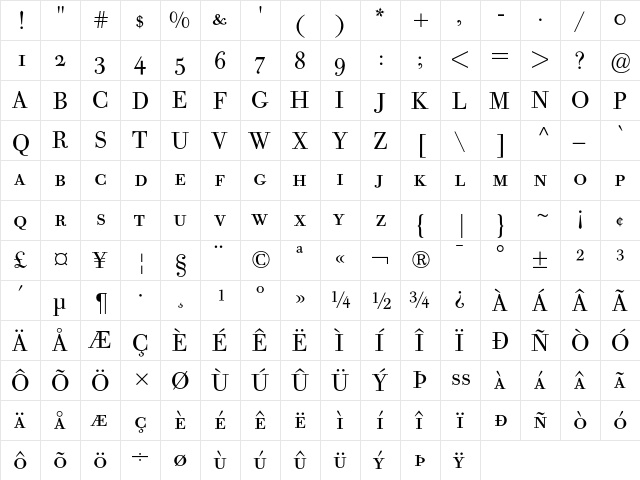
Bodoni Old Face BE Regular Small Caps & Oldstyle Figures
Design Context for Bodoni Old Face BE Typeface
Bodoni Old Face BE carries the refined structure of traditional serif typography, with bracketed terminals and considered proportions that communicate credibility and craft.
Pro Tip: Set Bodoni Old Face BE with slightly loose tracking in headlines to let each letterform's detail read clearly at display sizes.